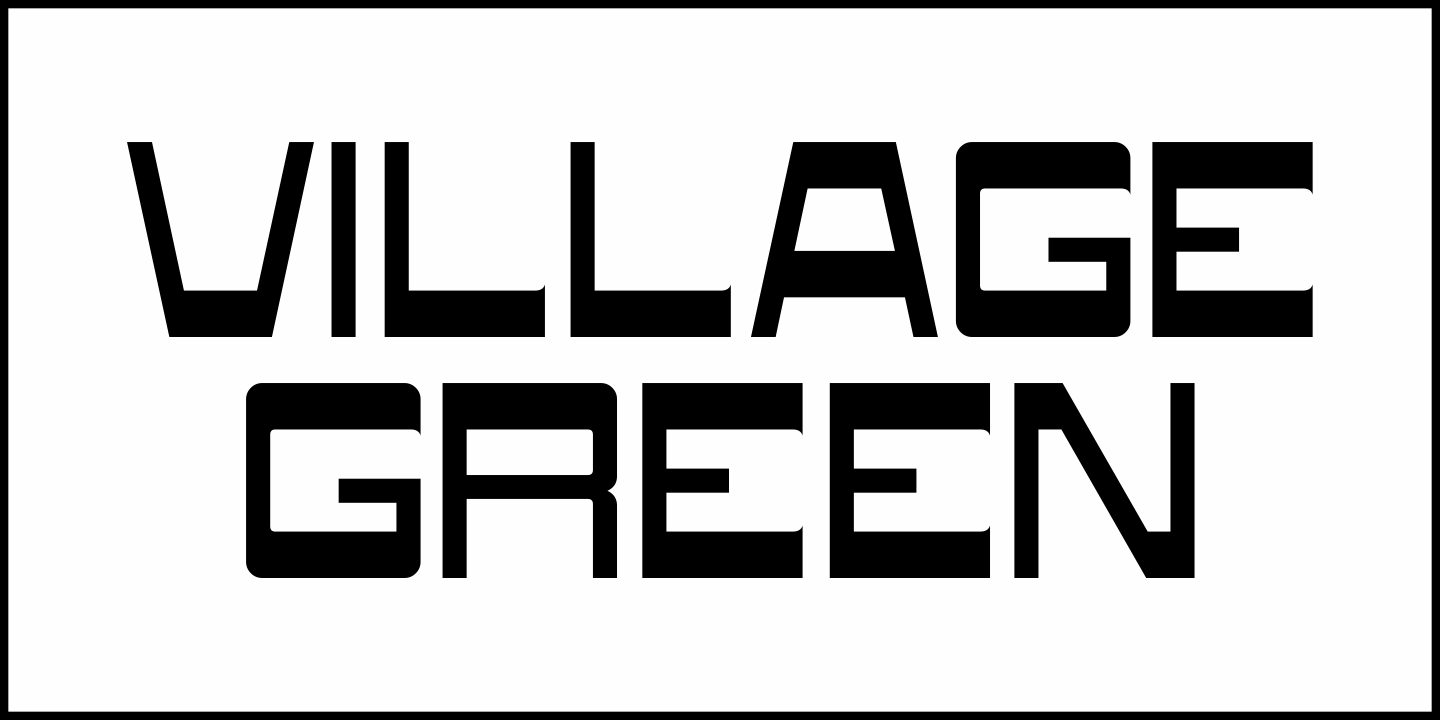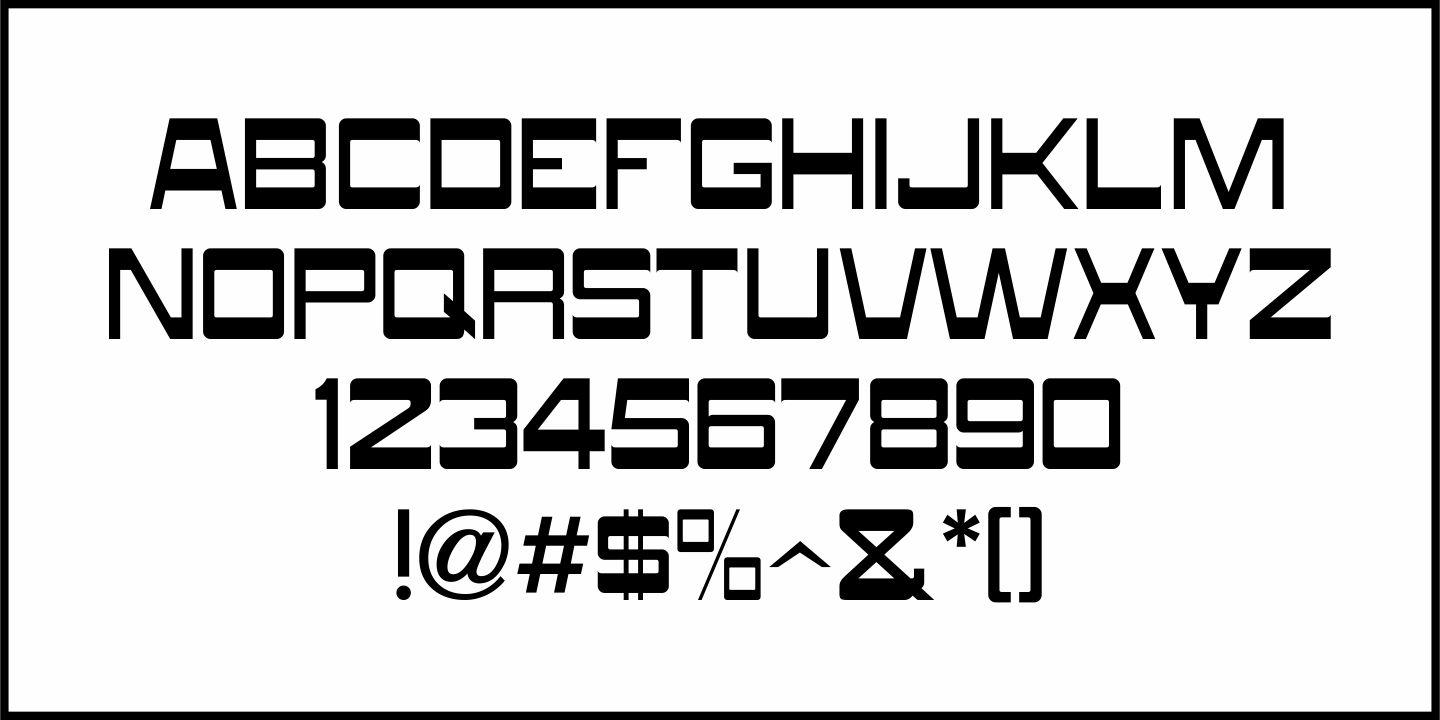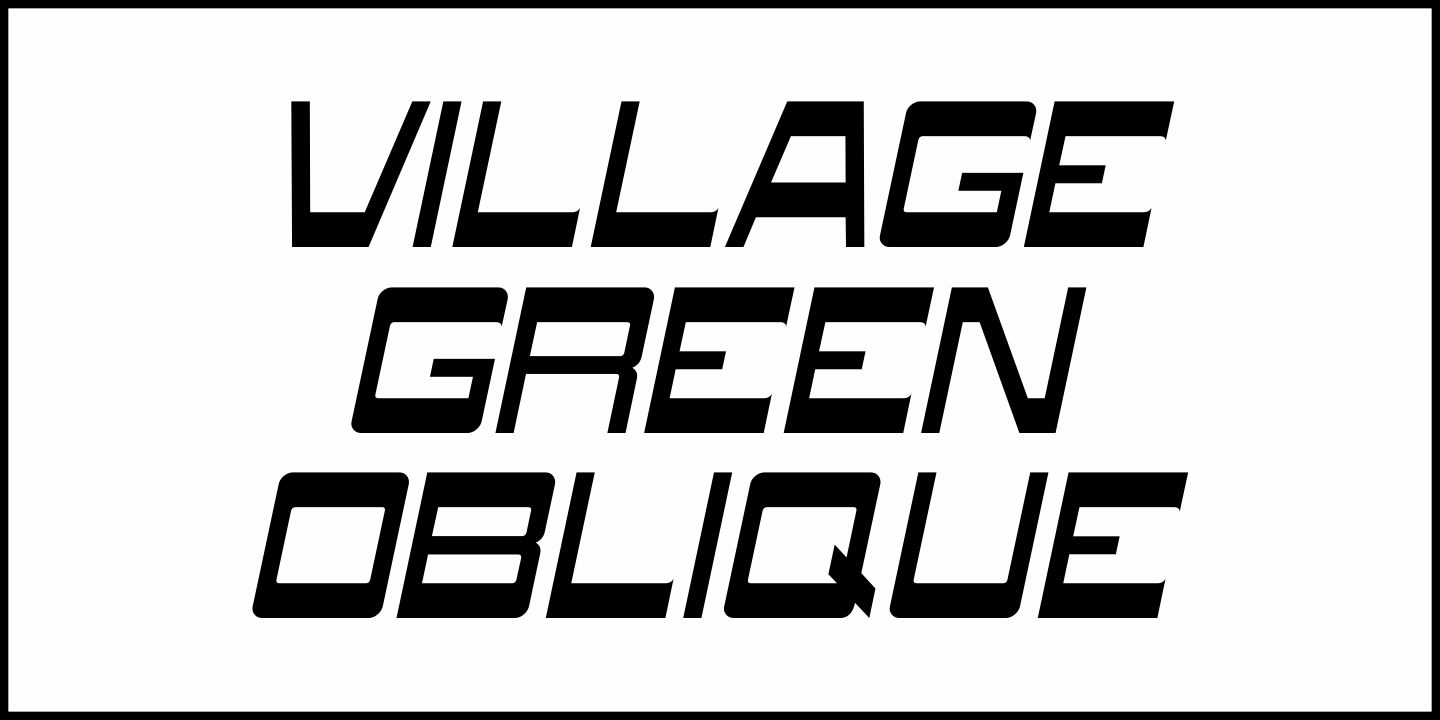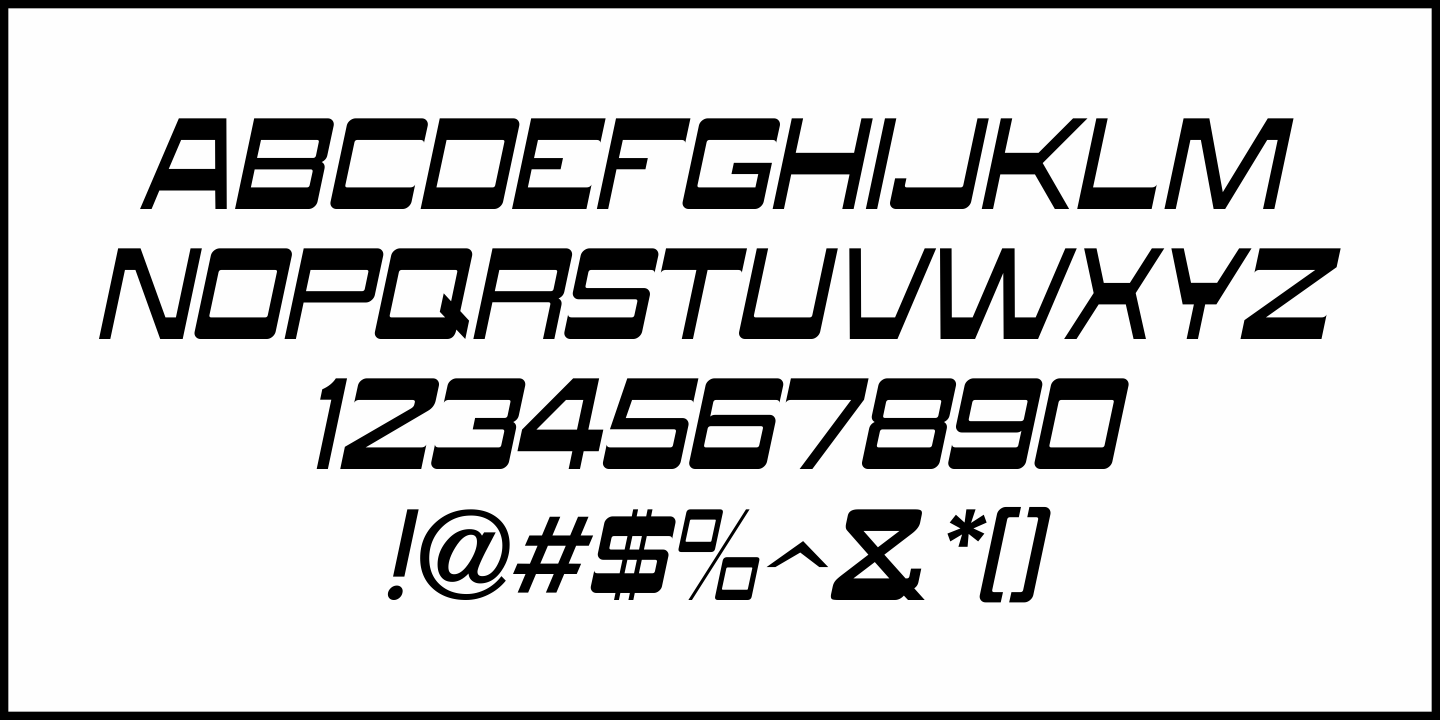
Village Green
Village Green JNL is based upon a font called “Giraffe Extended” from the 1892 edition of the MacKellar, Smiths & Jordan type specimen book, and is available in both regular and oblique versions.
Its Art Nouveau styling can also fit well with 1960s counter-culture revival projects.